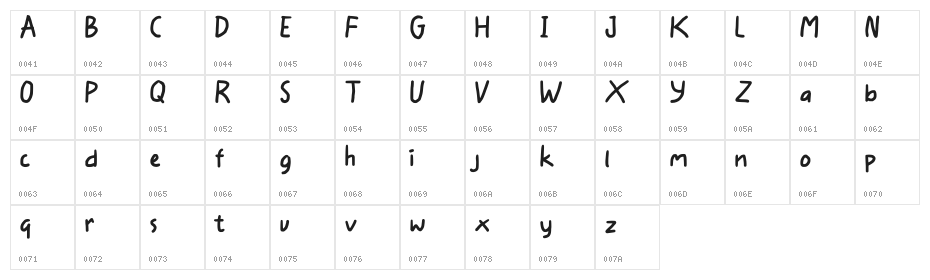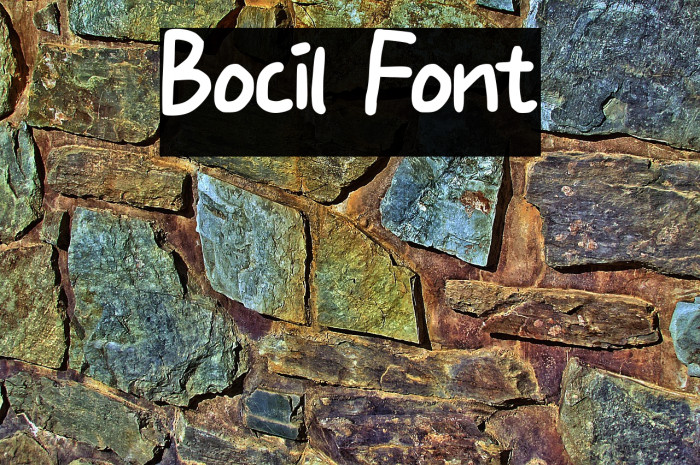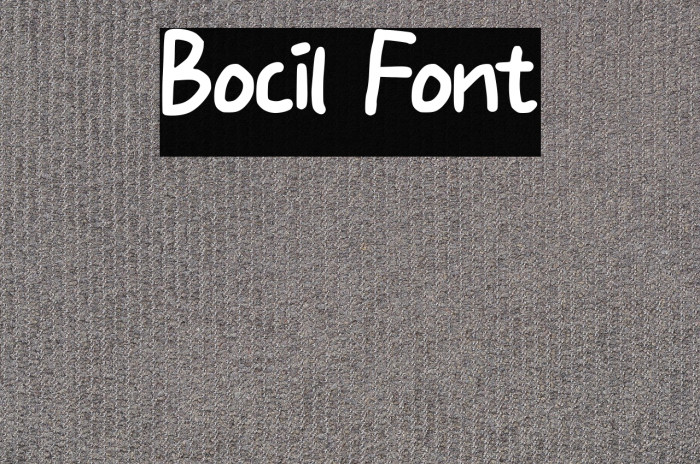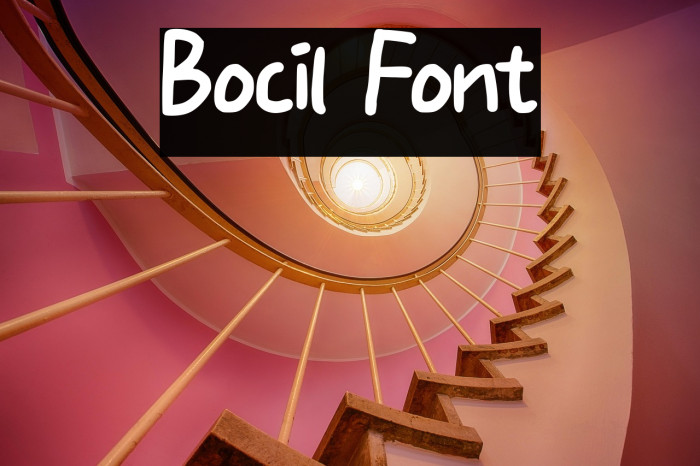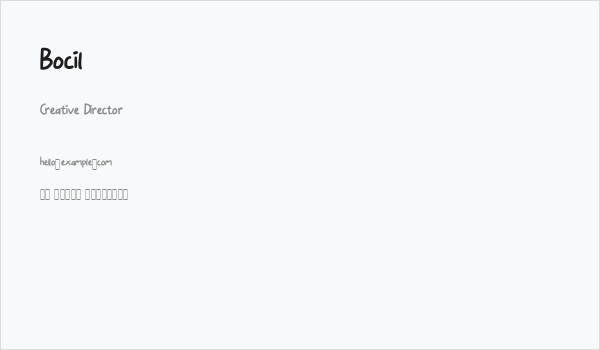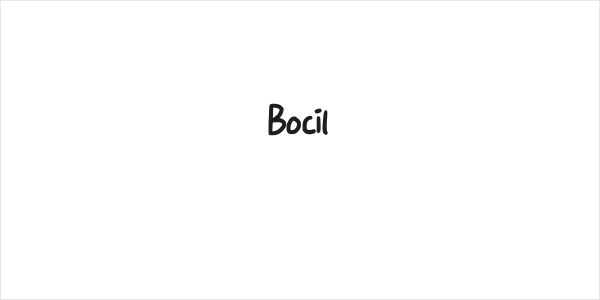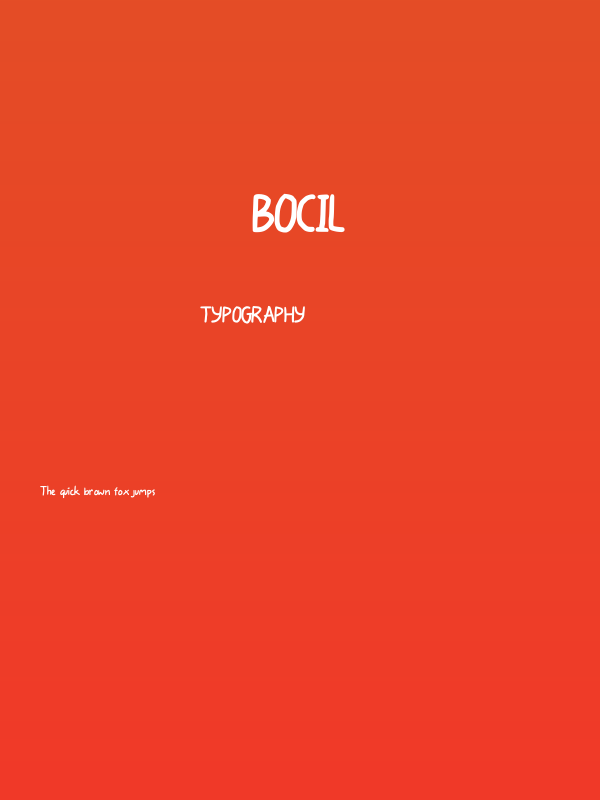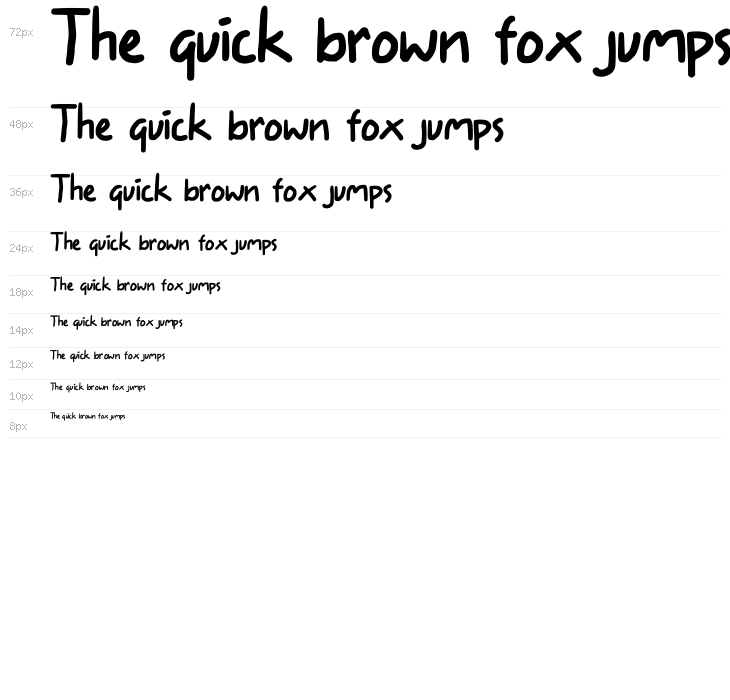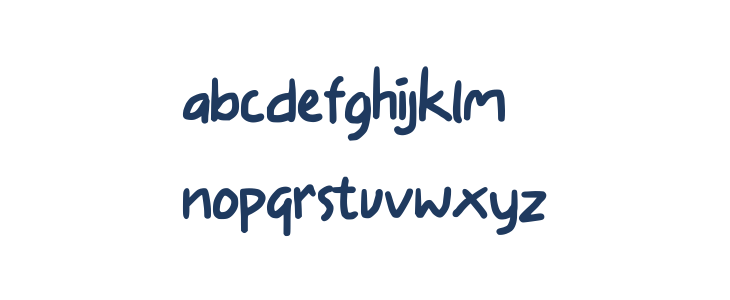
Bocil Font
Bocil Description
This font features a playful and informal handwritten style, characterized by its rounded and slightly irregular letterforms. The strokes are consistent in thickness, giving it a uniform appearance while maintaining a casual feel. The letters are slightly slanted, adding to the dynamic and lively nature of the font. The overall design is approachable and friendly, making it suitable for projects that require a personal touch. The spacing between characters is moderate, ensuring readability without compromising the whimsical aesthetic.
Overall StyleCasual
Use CaseHeadlines, Informal text, Branding
Proposed ProjectsIdeal for children's books, greeting cards, casual branding, and playful social media graphics.